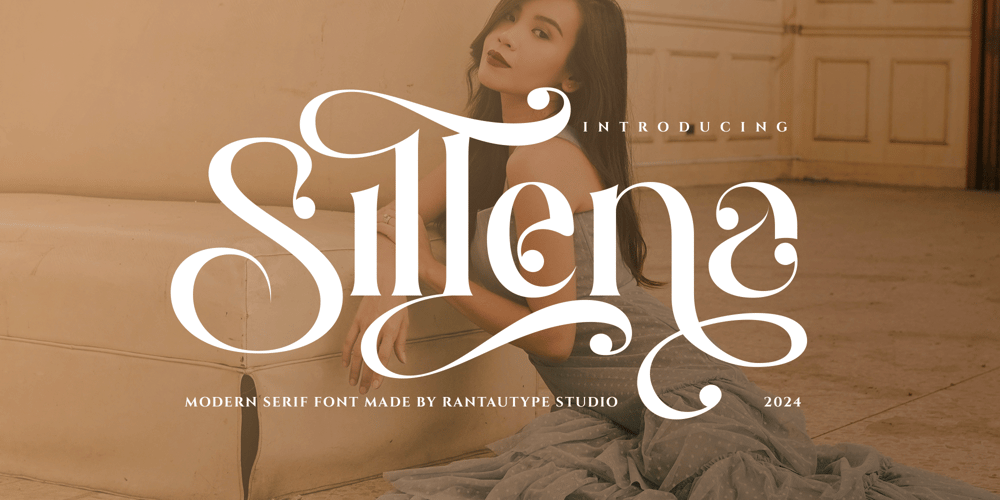
Sillena Font Family was designed by Yudi Pratama Chandra and published by RantauType. Sillena contains 2 styles and family package options. Sillena is modern serif font with complete dot swasah. We keep this font look modern and feminine that embraces elegance and grace. Its delicate curves and refined details create a sense of sophistication and femininity.Sillena is a perfectly choice for any creative endeavor, chic, lifestyle design such as logos, advertisements, watermark on photography, stationery, branding project, display and magazine, invitation, corporate brand, product design, label, business project and many other project with elegant touch.What you have: Standart Glyphs Numberial and Functional Alternate and Ligature Works on PC & Mac Simple installations Accessible in Adobe Illustrator, Adobe Photoshop, Adobe InDesign, even work on Microsoft Word. Fonts include Multilingual Character for: Afrikaans, Albanian, Asu, Basque, Bemba, Bena, Breton, Chiga, Cornish, Dutch, English, Estonian, Filipino, Finnish, Friulian, Galician, Gusii, Indonesian, Irish, Italian, Kabuverdianu, Kalenjin, Kinyarwanda, Luo, Luxembourgish, Luyia, Machame, Makhuwa-Meetto, Makonde, Malagasy, Manx, Morisyen, North, Ndebele, Nyankole, Oromo, Portuguese, Quechua, Romansh, Rombo, Rundi, Rwa, Samburu, Sango, Sangu, Scottish, Gaelic, Sena, Shambala, Shona, Soga, Somali, Spanish, Swahili, Swedish, Swiss, German.Thank you for your purchase!Hope you enjoy with our font!